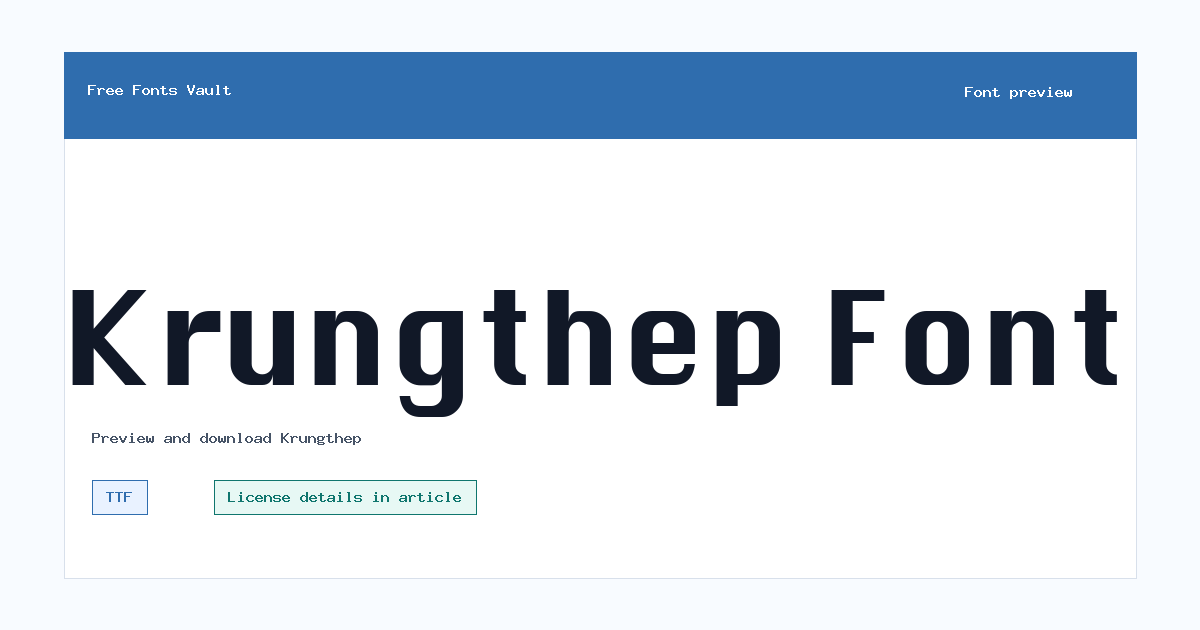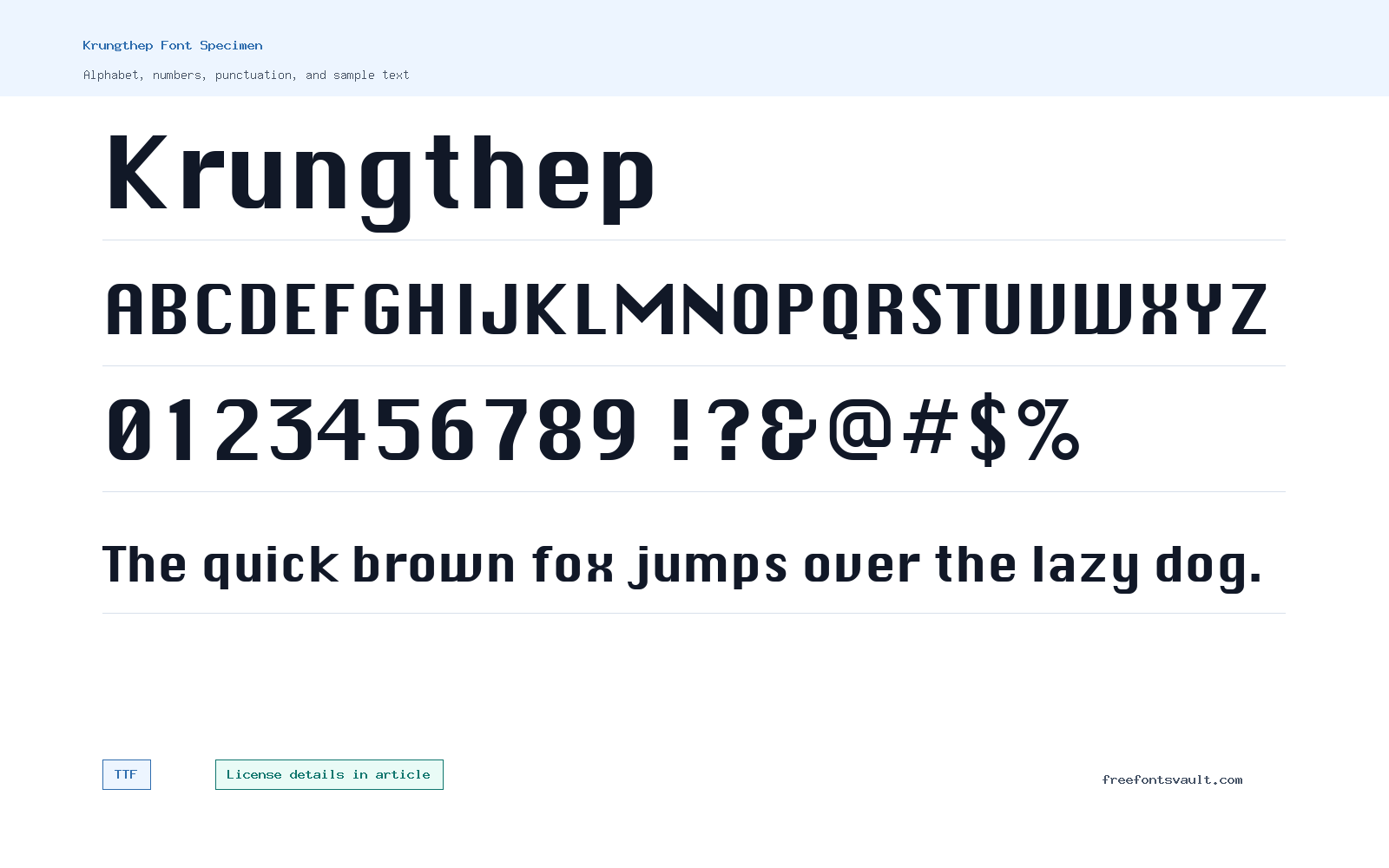
Krungthep
- Designer Apple Computer, Inc.
- Foundry Apple Computer, Inc.
Krungthep font.
Krungthep is a heavy display-style TTF font with squared forms and softened edges, useful for short words that need a compact, sturdy visual voice.
About Krungthep Font
Krungthep has a blocky, upright feel that makes short text look firm and direct. It is the kind of font to test for labels, banners, thumbnails, poster headings, and interface mockups where the message should read quickly and carry visual weight. The style is not delicate or decorative; it works by being simple, solid, and easy to notice at a glance.
Because the design is heavy and compact, it is better for short phrases than long reading. A one-word title, button label, badge, or event heading can work well, but paragraphs will usually feel dense. Use the preview field to test your exact words, then check whether spacing needs to be opened up for all-caps text or longer names.
- Heavy squared display look with softened corners
- Strong fit for short labels, banners, and heading text
- Better for display use than long paragraph reading
- Short headlines, button-style labels, badges, and banners
- Poster text, thumbnails, event graphics, and compact title lines
- Design mockups needing a sturdy squared sans-serif look
- One-word or two-word statements where weight matters
- Pairing with a simpler body font for longer explanations
Use Krungthep at larger sizes, keep the message short, and give crowded words extra space. Pair it with a simpler readable font for body copy, captions, product descriptions, and other supporting text.
What kind of font is Krungthep?
It is best treated as a heavy display font with squared, compact letterforms and softened edges.
Is Krungthep good for body text?
It is usually better for short headings, labels, and display text. Use a simpler font for paragraphs.